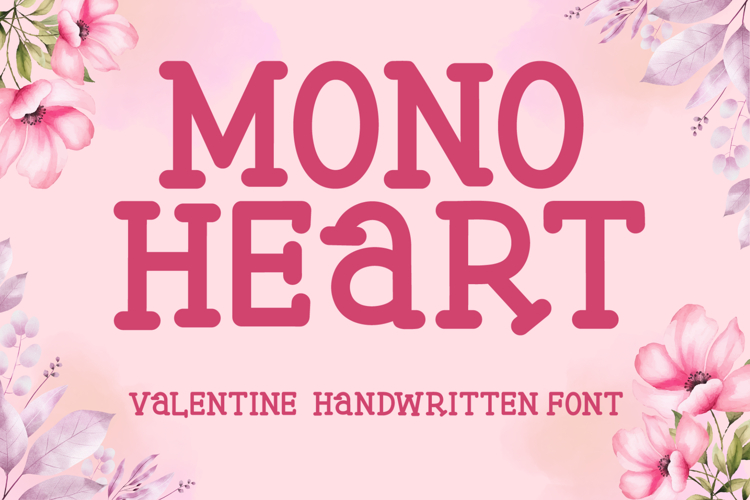
Monoheart is a soft and playful handwritten font created especially for love-inspired designs. With its relaxed handwriting style and smooth curves, Monoheart brings a warm and romantic atmosphere to any project.
This font works perfectly for Valentine cards, wedding stationery, love quotes, journals, and social media graphics. Its handwritten character makes your designs feel authentic, while the playful shapes keep the look light and cheerful. Monoheart is also great for crafting projects, labels, and business branding.
Monoheart Features :
- (a-z) titling, (a-z) swashes, ligatures